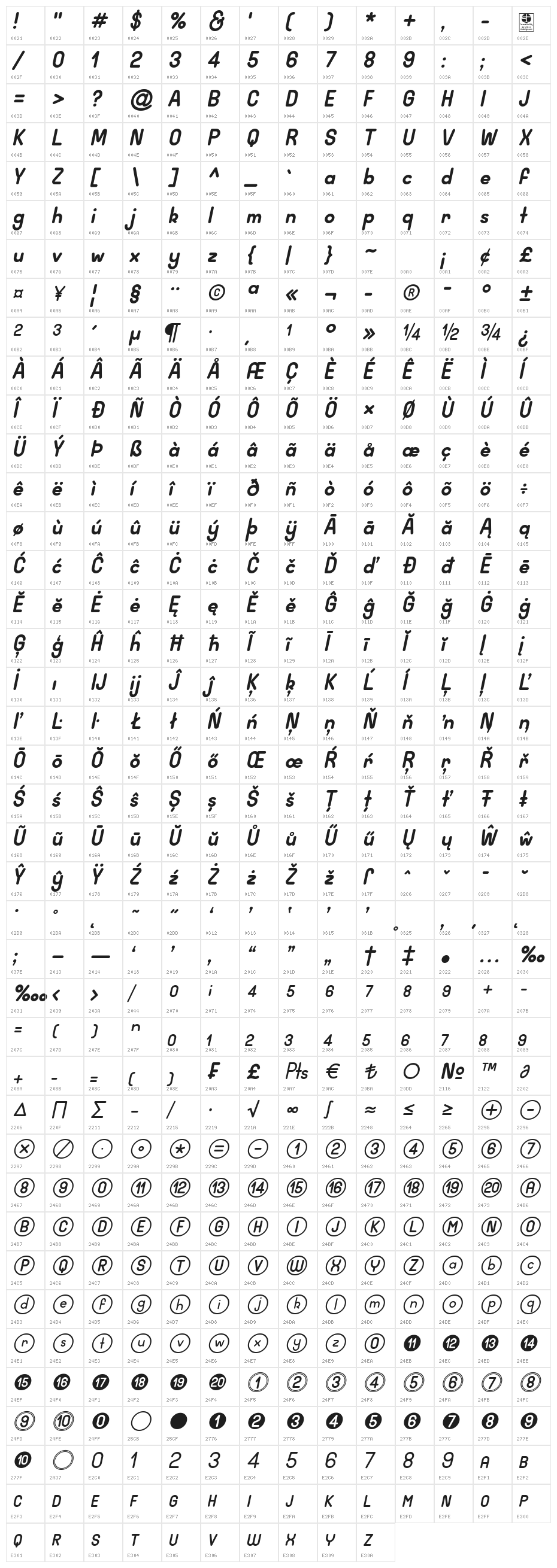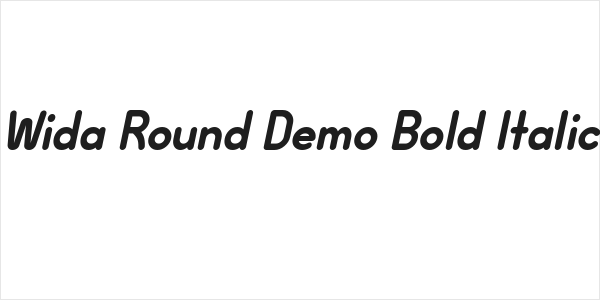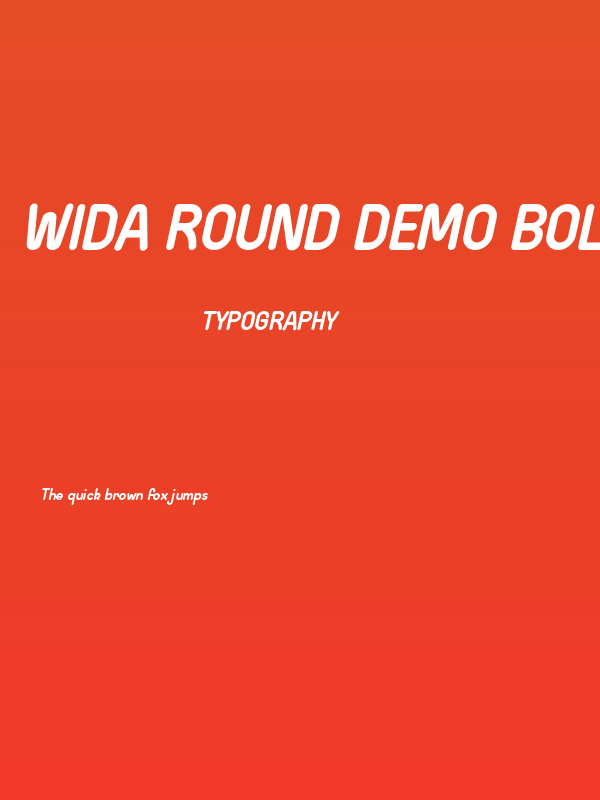
Wida Round Demo Bold Italic Font
Wida Round Demo Bold Italic Description
This font features a bold and rounded style with a playful and approachable appearance. The characters are italicized, giving them a dynamic and fluid motion. The rounded edges of each letter contribute to a friendly and modern aesthetic, making it suitable for a variety of creative applications. The font maintains a consistent weight throughout, ensuring readability while adding a touch of personality. Its bold nature makes it stand out, while the italic slant adds a sense of movement and energy. The spacing between characters is balanced, providing a clean and organized look.
| Use Case | Logos, Headlines, Branding |
| Proposed Projects | Ideal for branding, advertising, children's books, and creative digital content. |